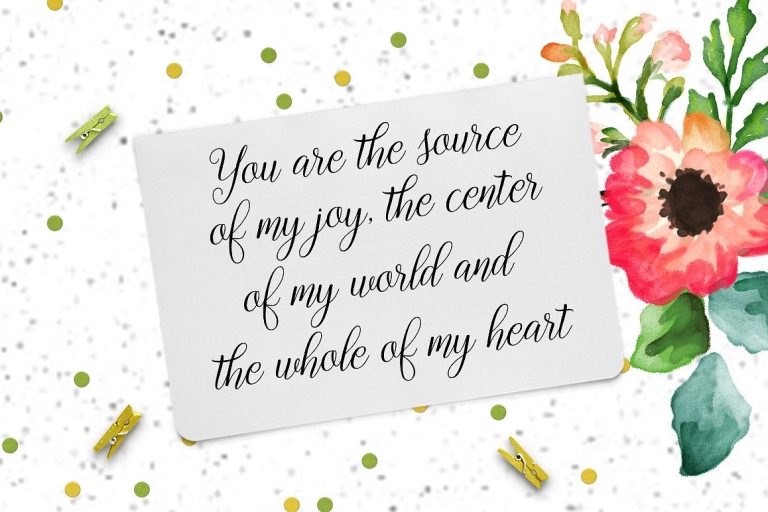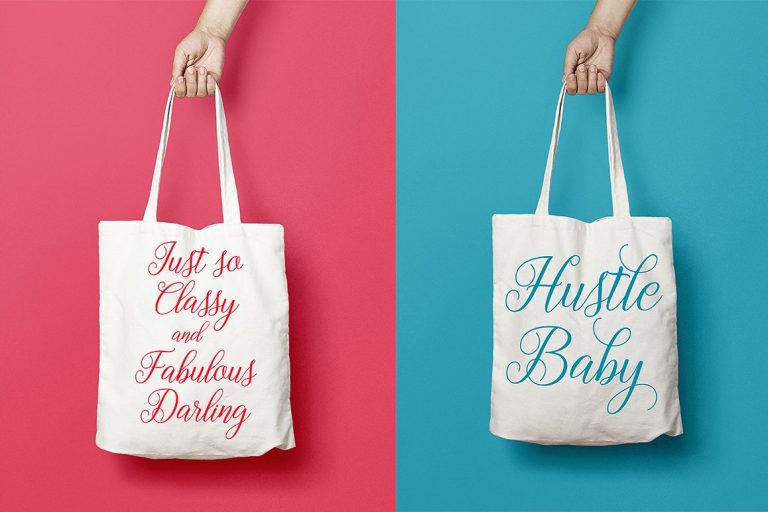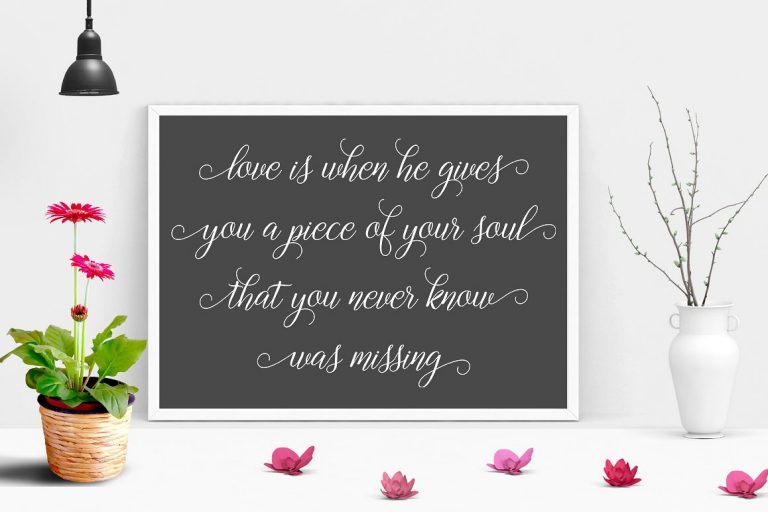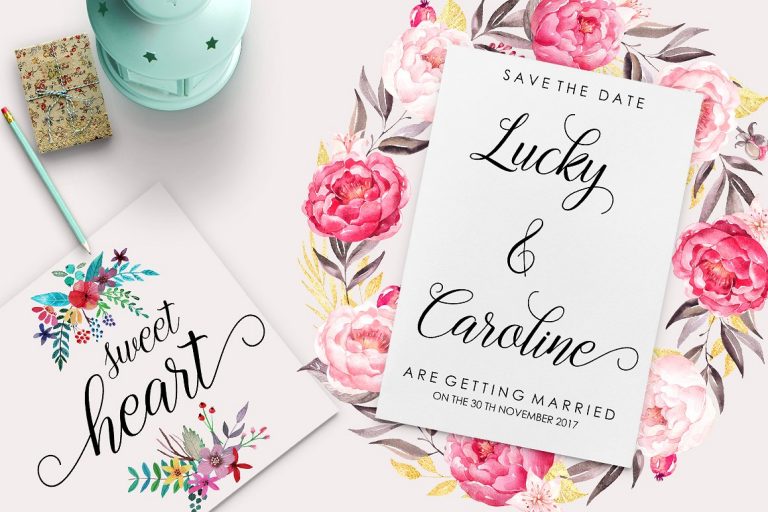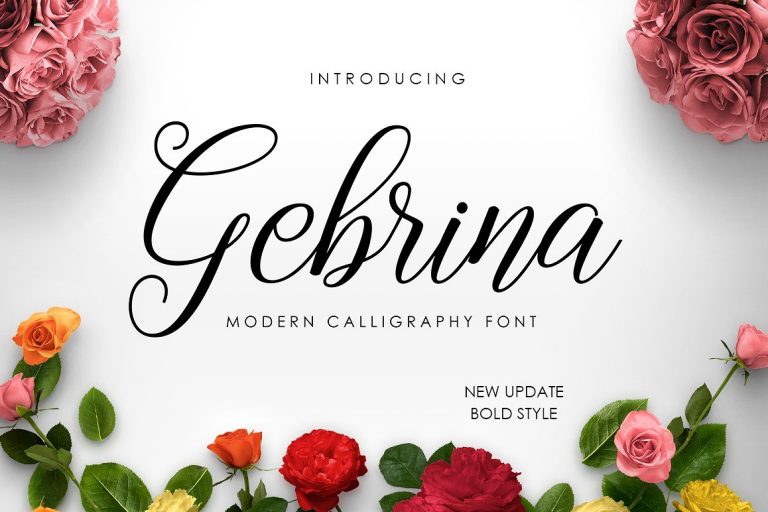
Gebrina Calligraphy Font – Free Demo
A lovely calligraphy font. Add it to your fonts collection right away. Introducing Gebrina Font! It is designed and shared by Megatype. Gebrina Script is modern calligraphy design, including Regular and Bold. This font is casual and pretty with swashes. Can used for various purposes. such as logo, product packaging, wedding invitations, branding, headlines, signage, labels, signature, book covers, posters, quotes and more.